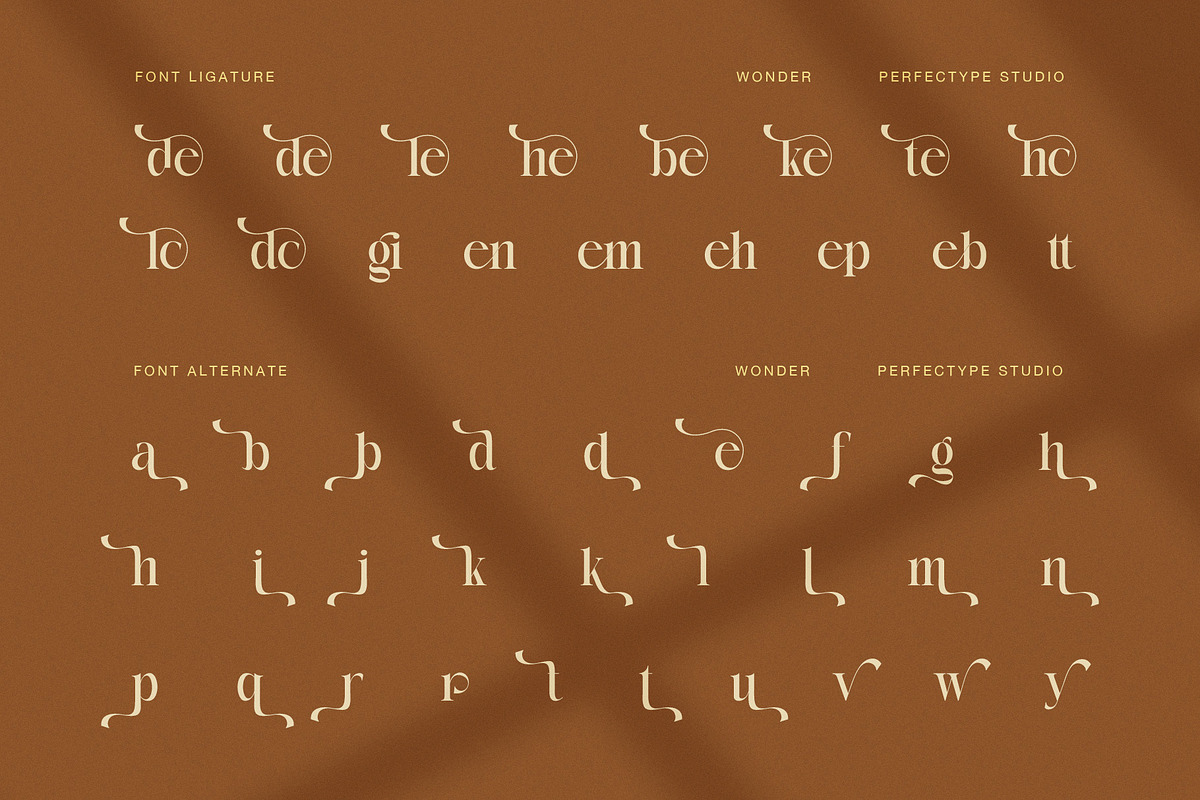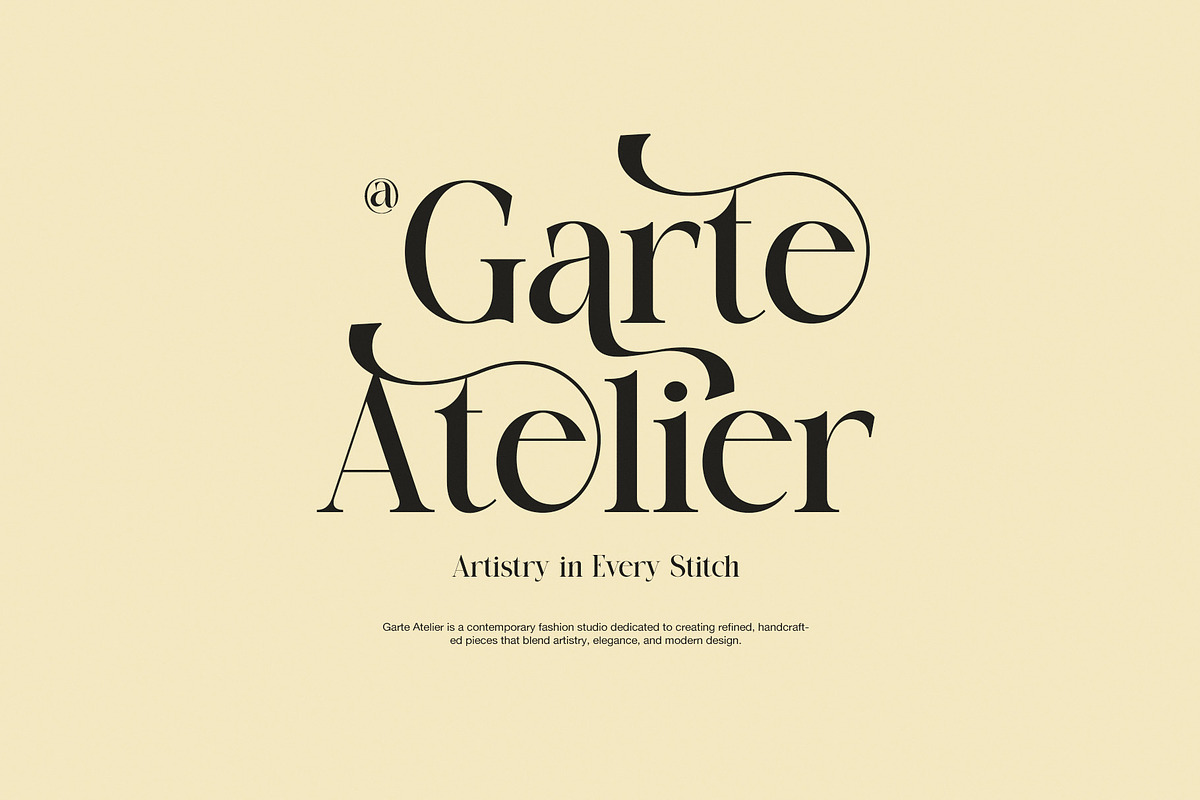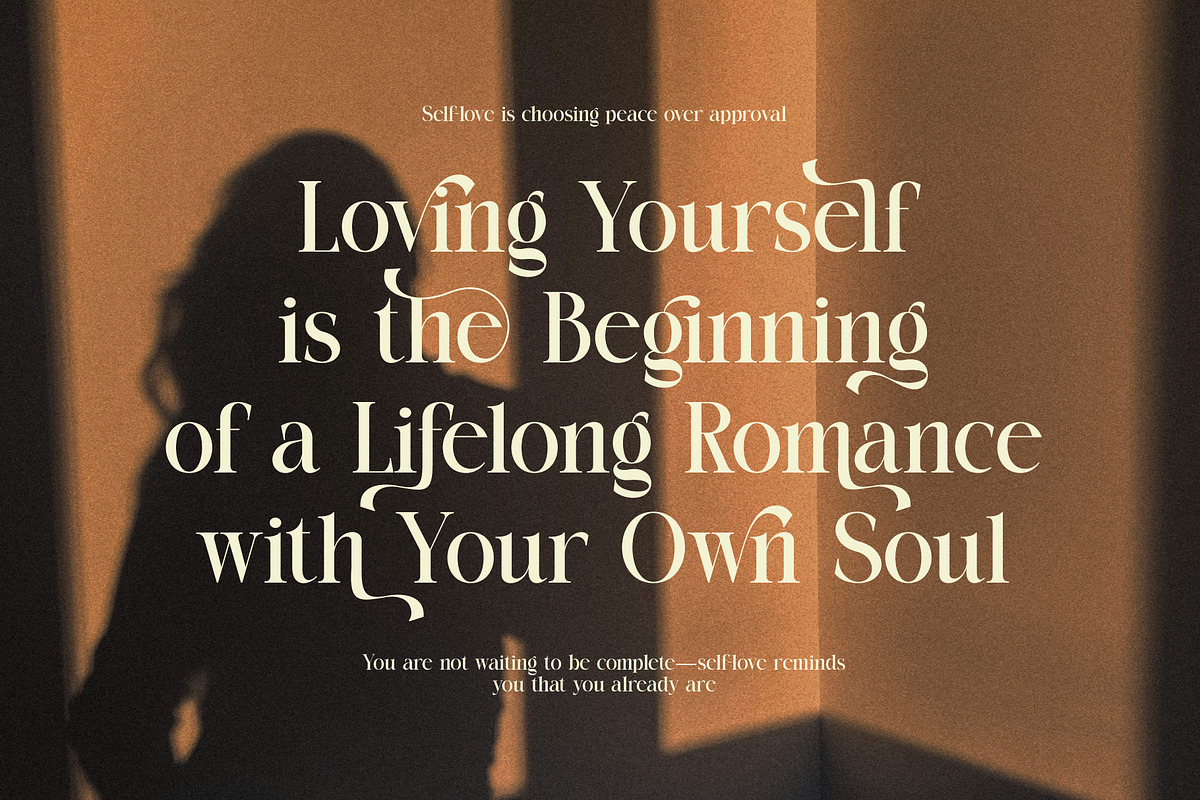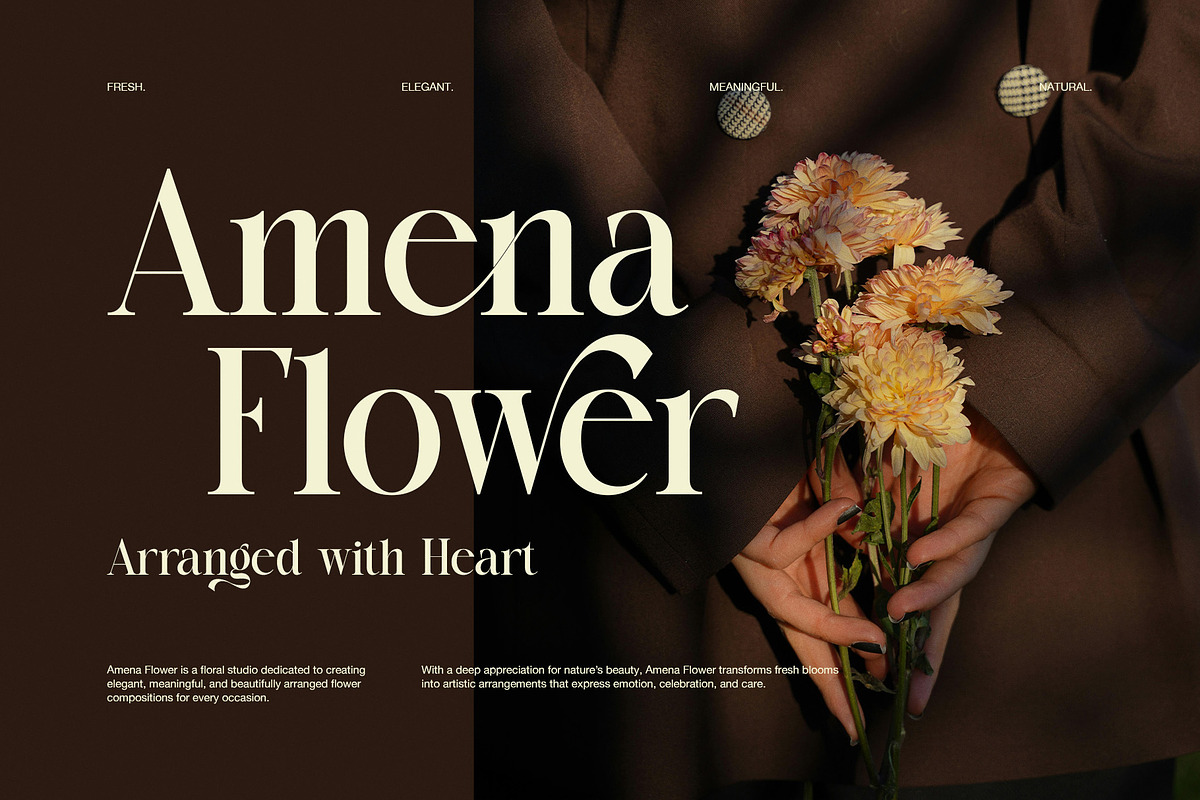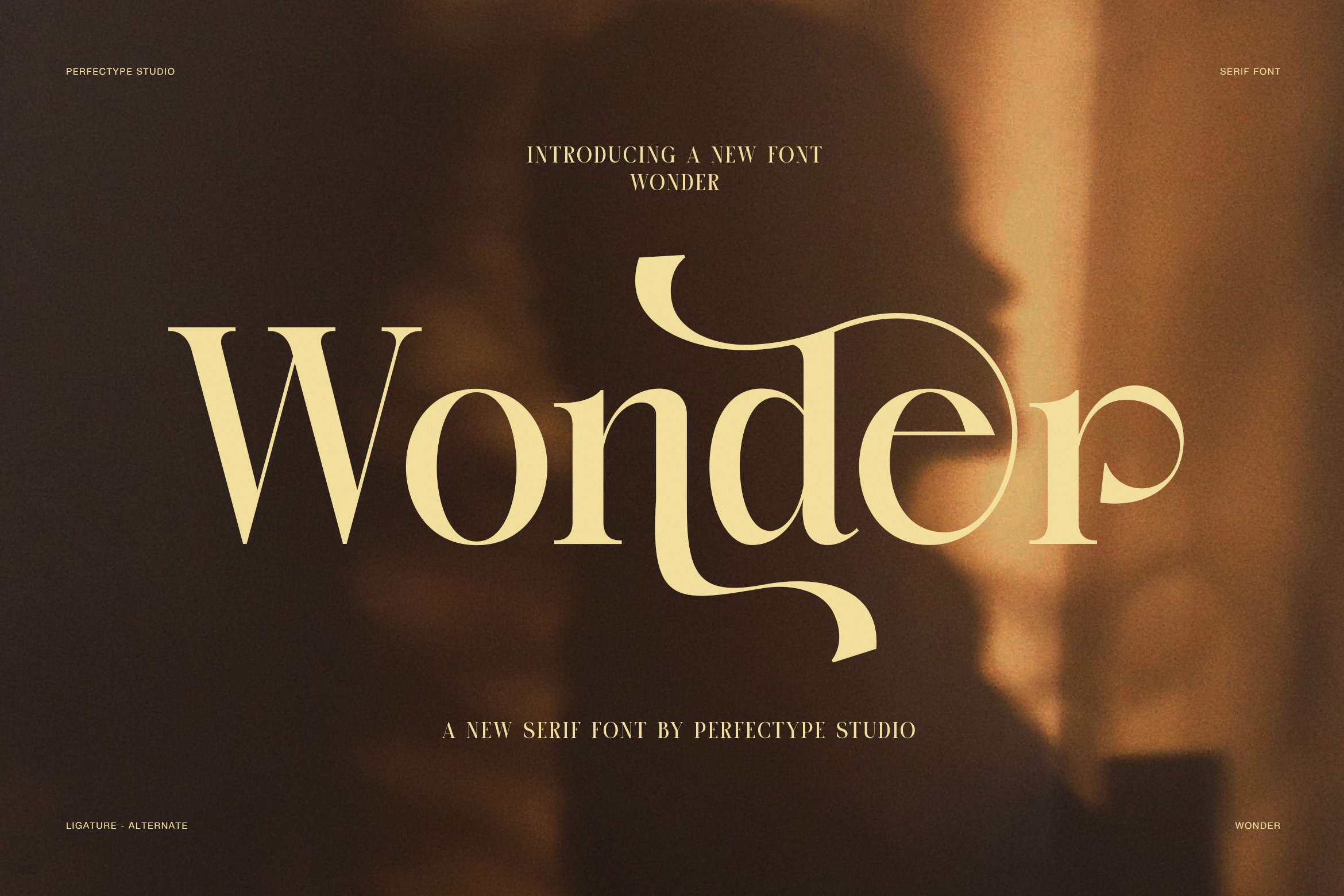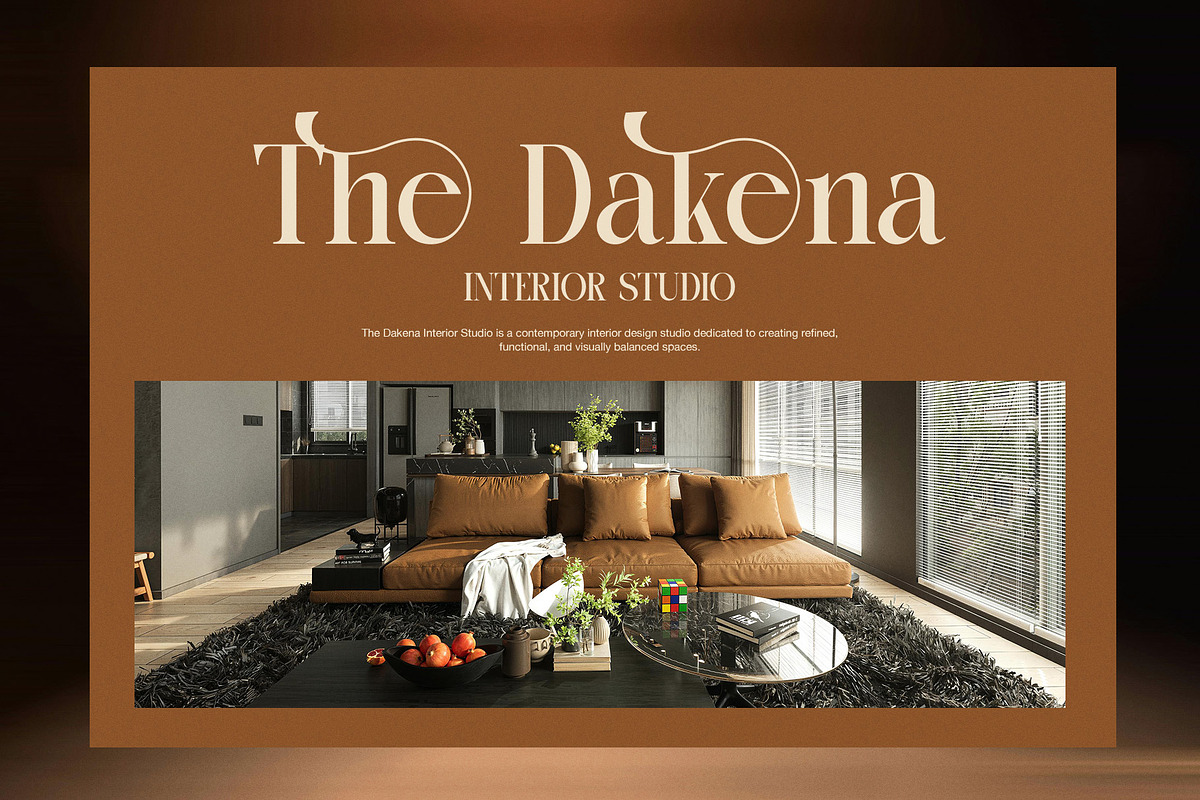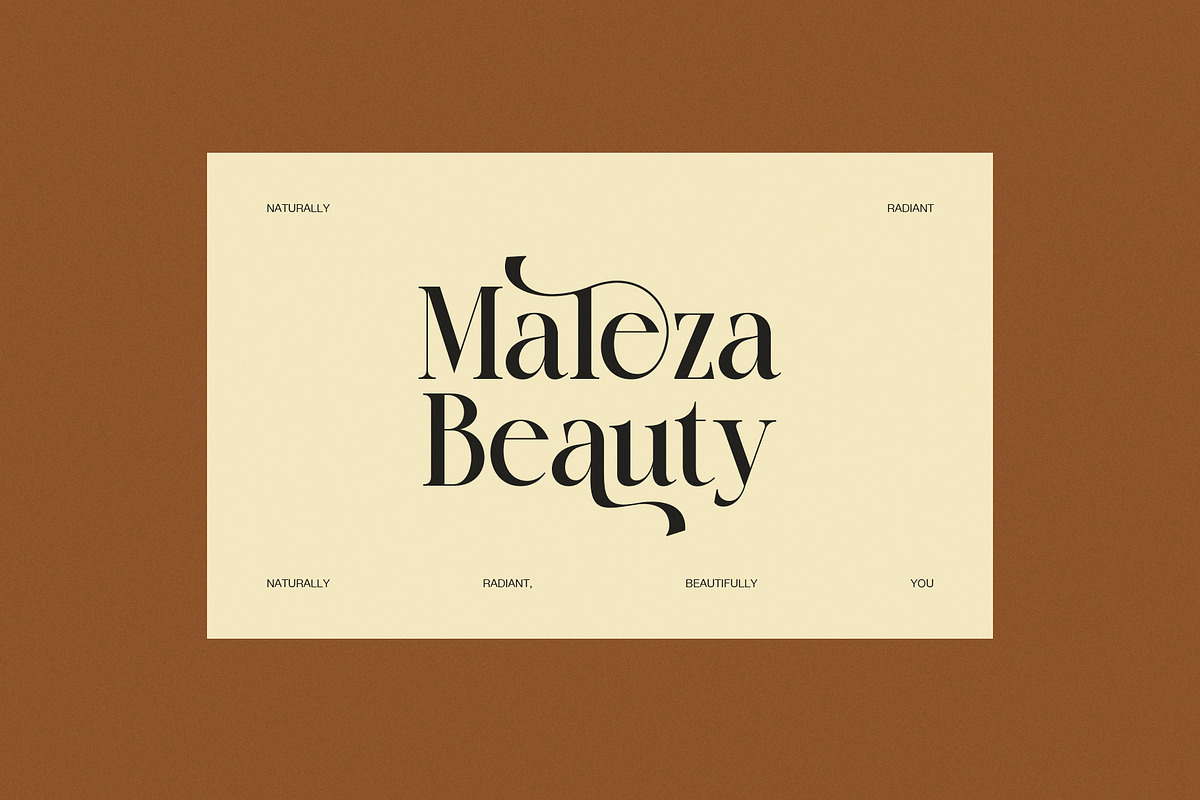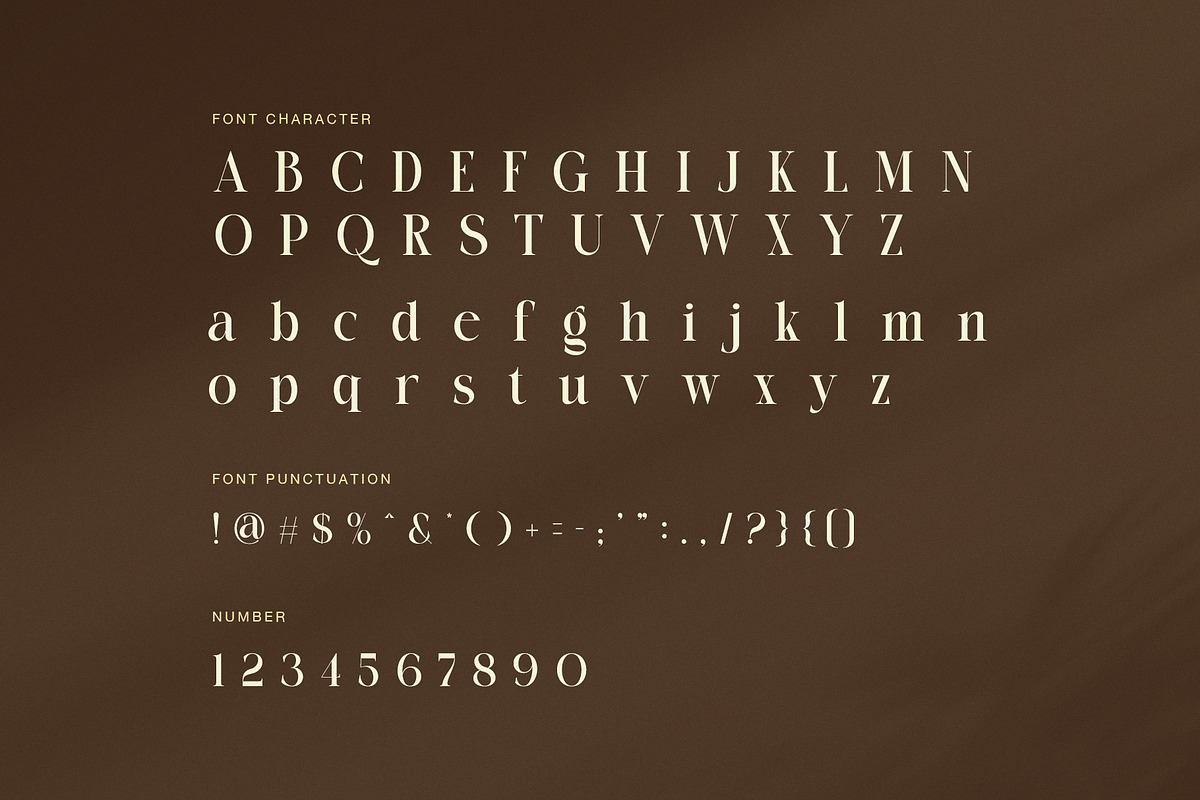
Wonder Elegant Serif Font
Wonder is an elegant serif font with a stylish display character and a graceful, modern feel. Its tall letterforms, smooth curves, and strong stroke contrast give each word a refined look. As a result, Wonder can make simple titles feel more polished, expressive, and memorable.
The font has a beautiful balance between thin and thick strokes. Meanwhile, its soft curves bring warmth to the classic serif form. Because of this balance, Wonder feels luxurious without becoming too formal. It is especially suitable for designs where the lettering needs to create a strong first impression.
One of the most appealing qualities of Wonder is its decorative flow. Several letter shapes feature curved details that extend beyond the main form. Therefore, words can gain a natural sense of movement and personality. These details are particularly effective in large headlines, where every character has enough space to stand out.
Wonder also has a clean and graceful lowercase style. In addition, the lowercase letters blend well with the larger display forms, making the font useful for both short titles and longer phrases. The result is a typeface that feels stylish while remaining clear and easy to read.
Wonder Font Features
Elegant modern serif style
High contrast between thick and thin strokes
Tall and refined letter proportions
Graceful curved terminals
Decorative flowing details
Stylish uppercase and lowercase letters
Clear numbers and punctuation
Strong display presence
Fashionable and premium visual tone
Suitable for print and digital design
Wonder works beautifully for fashion branding, beauty logos, editorial layouts, interior studios, floral brands, photography, packaging, posters, and social media graphics. The product previews also show how its forms perform across beauty, interior, floral, and lifestyle themes.
Moreover, Wonder can create an elegant mood without making a layout feel crowded. Its graceful shapes work well on clean backgrounds, while its fine details can add charm to rich photographic compositions. Likewise, the font suits both warm and dark color palettes.
For branding, Wonder gives names and headlines a distinctive voice. For editorial work, it creates a refined fashion feel. Meanwhile, for invitations and lifestyle designs, its flowing shapes add a soft and romantic touch.
Overall, Wonder is a versatile elegant serif font for designers who want beauty, style, and character in one typeface. Its refined contrast, graceful movement, and polished display quality make it a strong choice for premium creative projects.